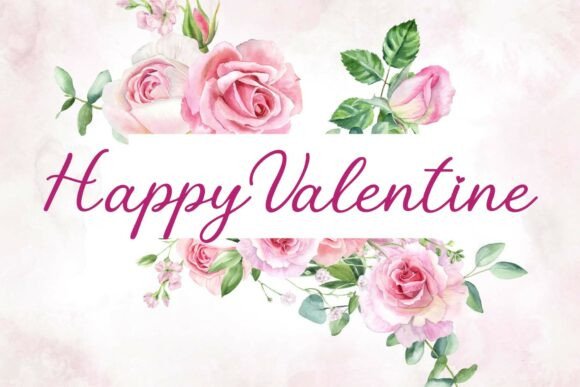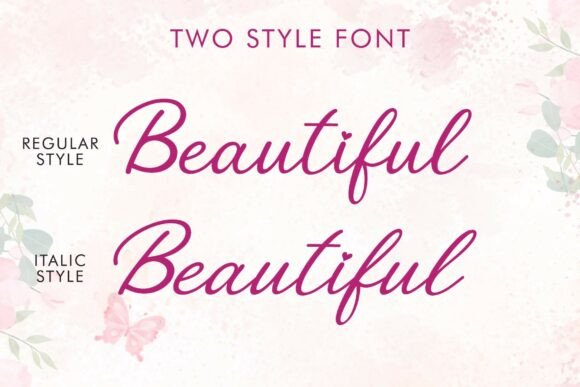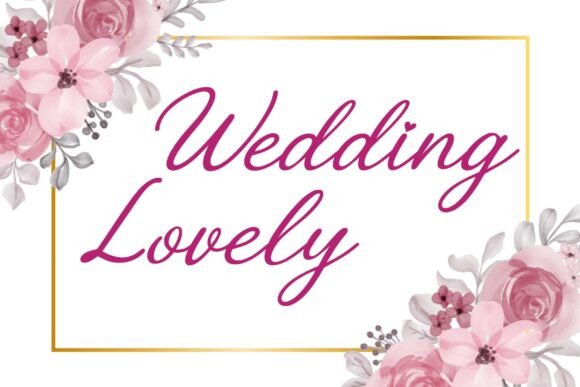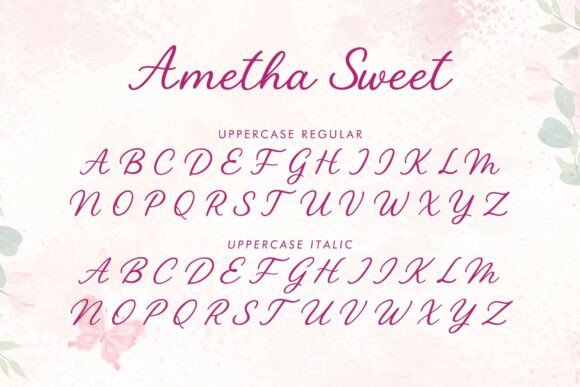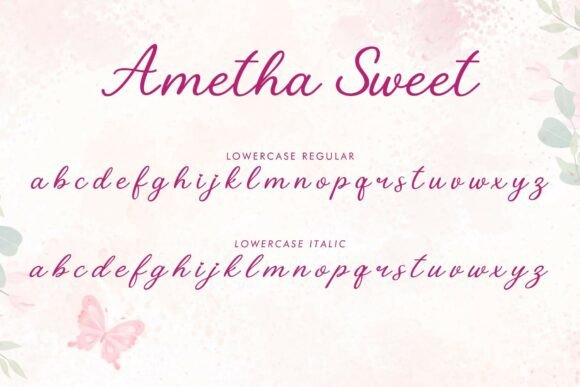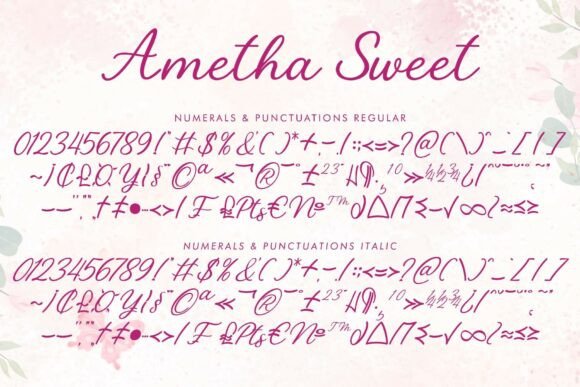
The Sweet Spot: Discovering Ametha Sweet Font
Ah, the elusive perfect font. You know, that one typeface that makes your design project go from meh to mesmerizing. I’ve been there, done that, and got the t-shirt (which, by the way, was probably designed with a font that wasn’t quite right). But today, I want to share with you a sweet secret: Ametha Sweet Font. This beautiful script font has been a game-changer for me, and I’m excited to dive into its features, uses, and some practical tips on how to make the most of it.
A Design Moment of Clarity
I recall working on a wedding stationery project, and my client was adamant about having a font that exuded elegance, romance, and a touch of playfulness. I scoured font libraries, but nothing seemed quite right. That was until I stumbled upon Ametha Sweet. Its smooth flow, clean strokes, and delicate connectivity won me over. It was like the font was whispering, “Use me, and your designs will be irresistibly sweet.” And, boy, was it right!
- ✨ Elegant, smooth flow that mimics confident penmanship
- ✅ Clean, energetic strokes that add a touch of sophistication
- 💖 Perfect balance of delicate connectivity and a slightly bouncy baseline
- 📚 Comprehensive set of uppercase and lowercase letters, numerals, and punctuation
⚠️ While Ametha Sweet is incredibly versatile, it’s not the best fit for very large or very small text sizes. It’s optimized for display use, so keep that in mind when selecting font sizes.
🤔 Some users might find the font a tad too sweet or feminine for certain projects. However, I believe this is part of its charm, and with some creative experimentation, it can work beautifully in a variety of contexts.
The Designer Inspiration Behind Ametha Sweet
While the true story behind Ametha Sweet’s creation is unknown, it’s easy to imagine a designer with a passion for elegant handwriting and a love for all things sweet. Perhaps they were inspired by vintage wedding invitations, elegant calligraphy, or the beauty of handwritten letters. Whatever the inspiration, Ametha Sweet is a testament to the power of beautiful typography in design.
| Is Ametha Sweet suitable for body text? | While Ametha Sweet is optimized for display use, it can be used for body text in certain contexts. However, it’s recommended to use a clear, readable font for longer blocks of text. |